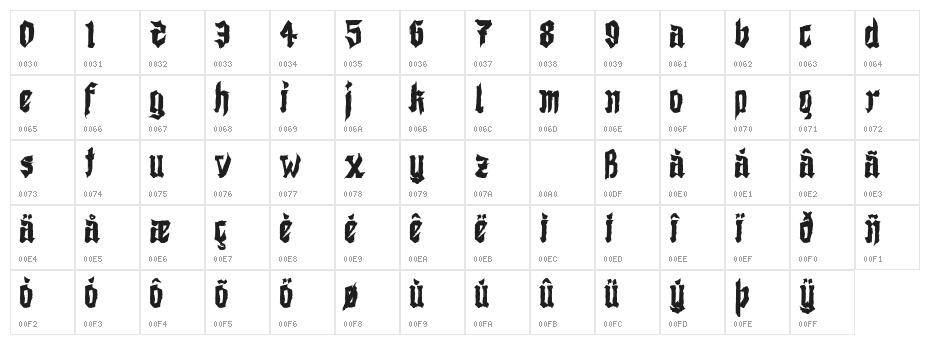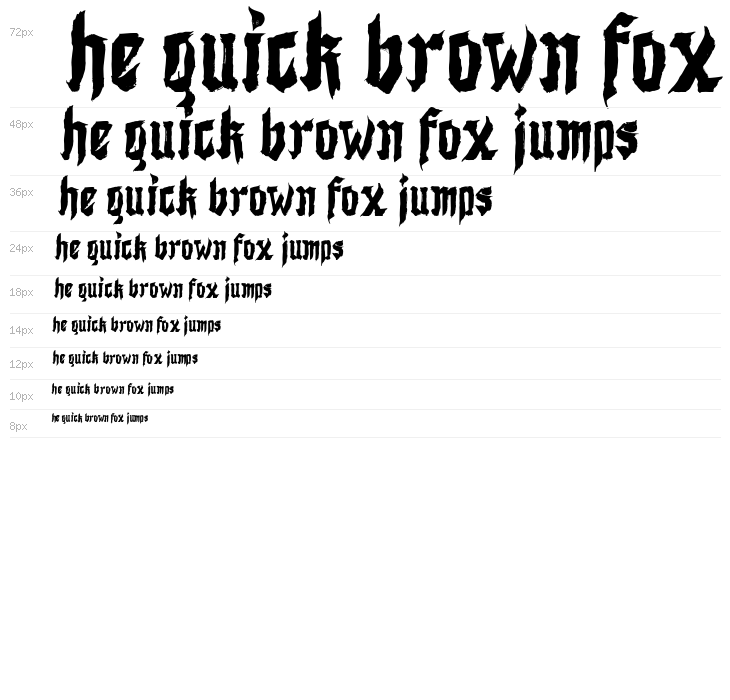
Shodo Gothic Demo Font
Shodo Gothic Demo Description
This font exhibits a bold and dramatic style, reminiscent of traditional Gothic calligraphy. The characters are sharply defined with pronounced angles and thick strokes, giving it a strong and imposing presence. The design incorporates elements of brushwork, adding a dynamic and artistic flair. Each letter is distinct, with unique flourishes that enhance its visual impact. The numerals and special characters maintain the same stylistic integrity, ensuring consistency across all elements. This font is ideal for projects that require a touch of historical or medieval aesthetics, while still offering a modern twist.
| Proposed Projects | Perfect for use in posters, book covers, branding for historical events, or any project needing a dramatic and artistic touch. |